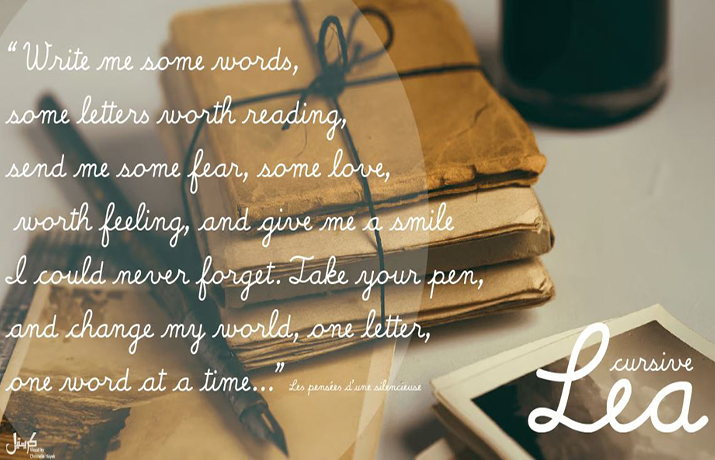
JH Lea Font is a charming and playful typeface that brings a touch of childhood nostalgia to any design project. Designed by Joe Hatem and published by JH Fonts.
JH Lea is a school kids’ typeface that is inspired by the cursive handwriting typical of children’s books and first-hand calligraphy experience.
This font family includes a single style, which is a cursive script font that has a whimsical and friendly appearance.
It features the flowing and looping lines of cursive handwriting, giving it a playful and informal feel that is perfect for children’s books, posters, and other design projects aimed at younger audiences.
| Style: | Handwritten, Script, Typeface |
The JH Lea font is easy to read and legible, making it a great choice for educational materials and teaching resources.
- Its handwritten style adds a personal and human touch to any design, while its playful and fun appearance makes it suitable for a wide range of design applications.
- This font is the perfect choice for posters, fashion magazines, cosmetics, card printing, business cards, wedding invitations, logotypes, photo collages, banner designs, postcard designs, advertisements, and other personal designing purposes.